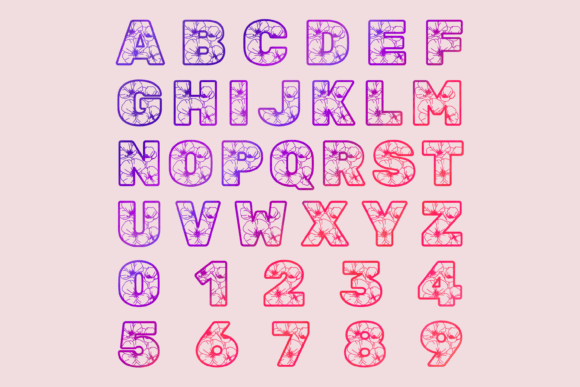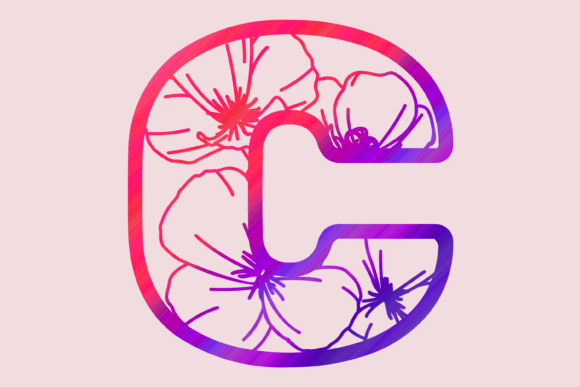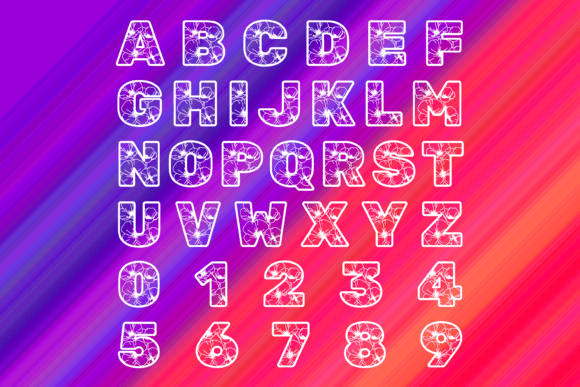
Introduction to California Poppy Lace Font
California Poppy Lace is an elegant, botanical, lace-like decorative font.
This font is ideal for adding special decoration to your crafts Whether you use it for custom designs, DIY crafts, or just any creation that requires a lovely touch, this font will be an amazing choice.
Key Features of California Poppy Lace Font